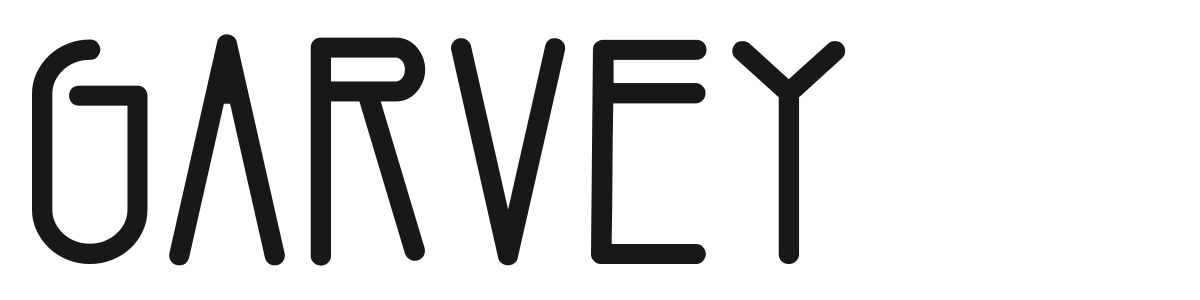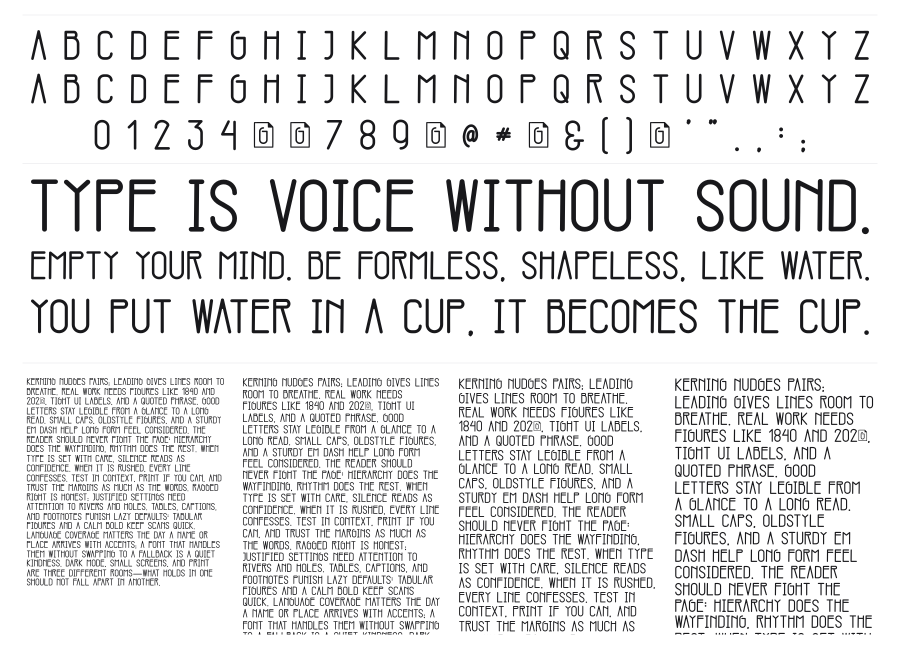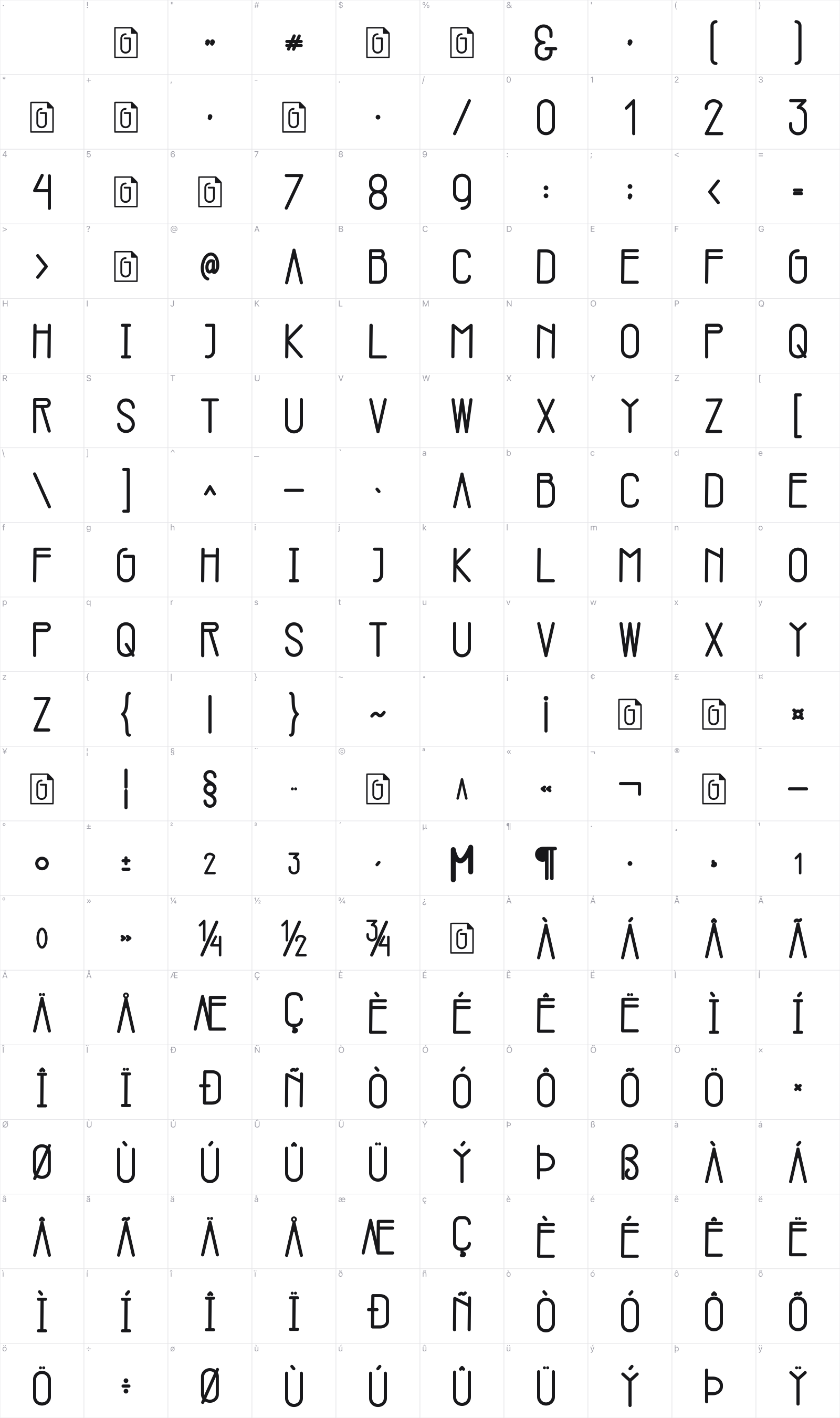
Garvey
Garvey is a tall, narrow display sans with an Art Nouveau-inflected personality, built from near-monoweight strokes that taper and fork at certain terminals. The characters carry a hand-crafted warmth despite their geometric construction, landing somewhere between vintage sign painting and early 20th-century decorative lettering. It reads with charm at headline sizes and works naturally in branding, posters, and packaging that needs a retro edge without feeling heavy.